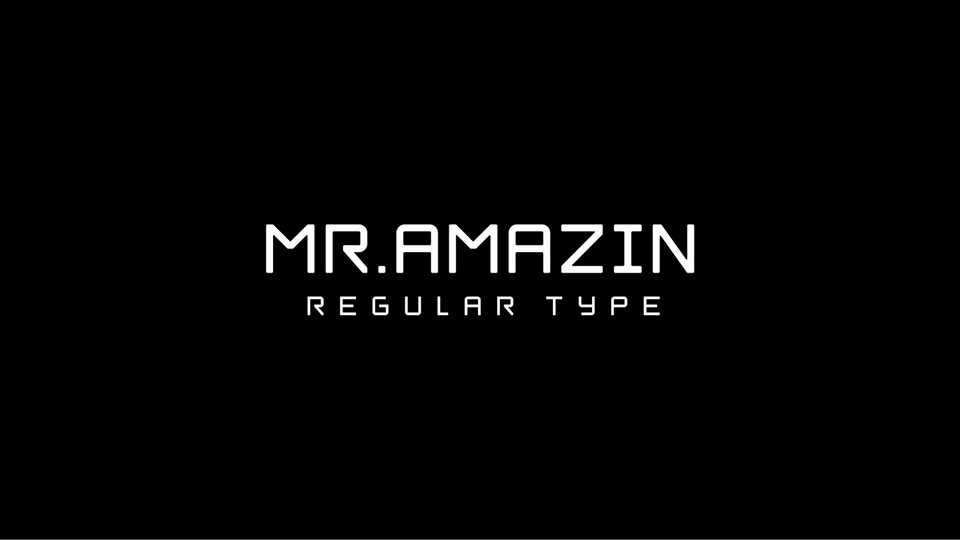
Download Mr. Amazin font, a modern geometric display typeface with a strong personality. Mr. Amazin is ideal for branding, posters, headlines, logos, packaging and other amazing artworks.